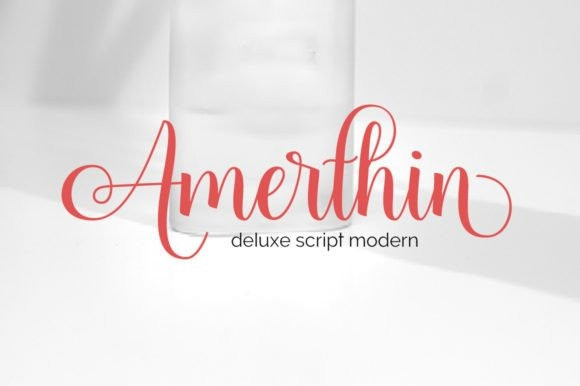
Amerthin Font
Amerthin Script Font is a classy, handwritten font with a distinctive curve, within which there are some interesting features that are perfect for stylish, feminine projects.
Amerthin features initial and ending engraved in upper and lower case, exquisite ligatures and this font is highly applicable when you use it for your wedding design projects, fashion, greetings, invitations, social media and more.